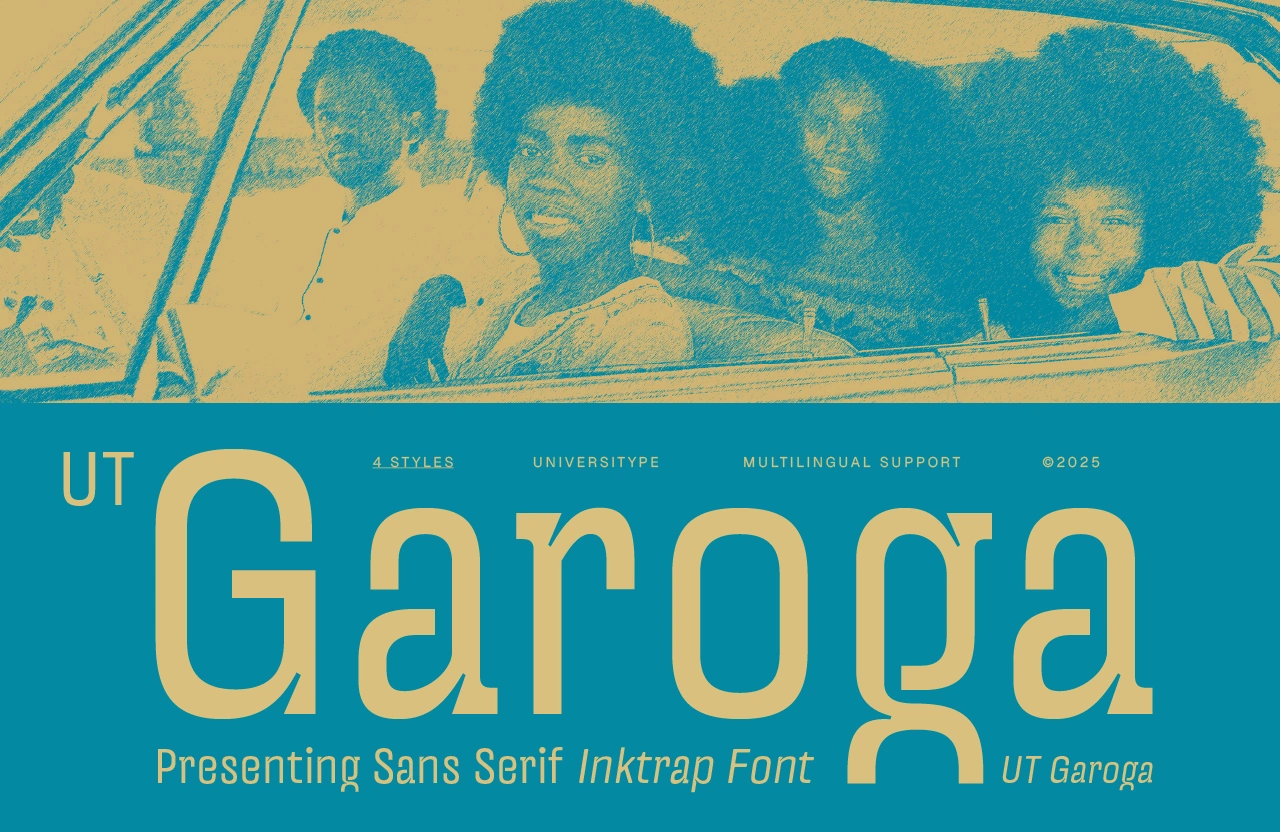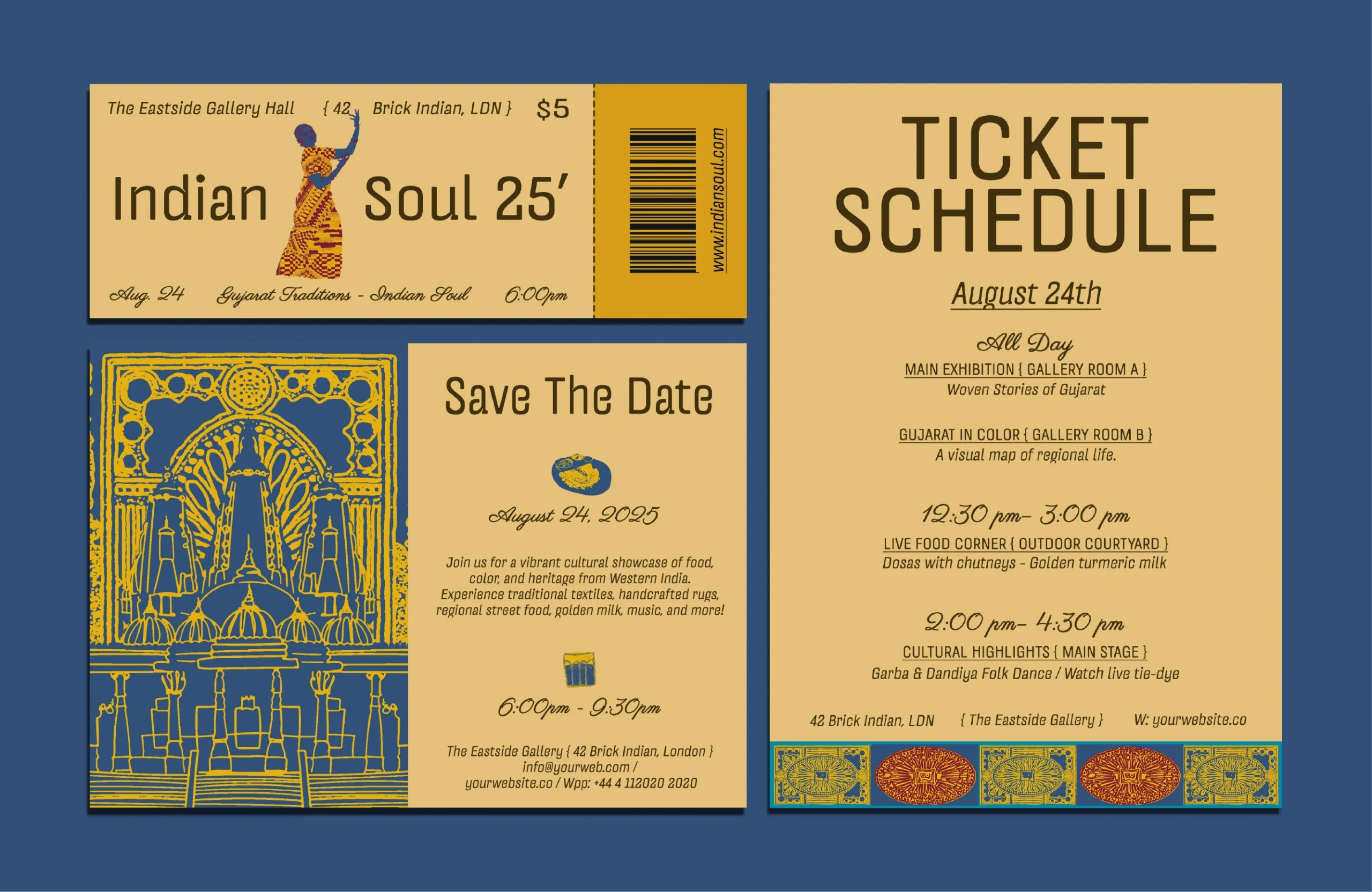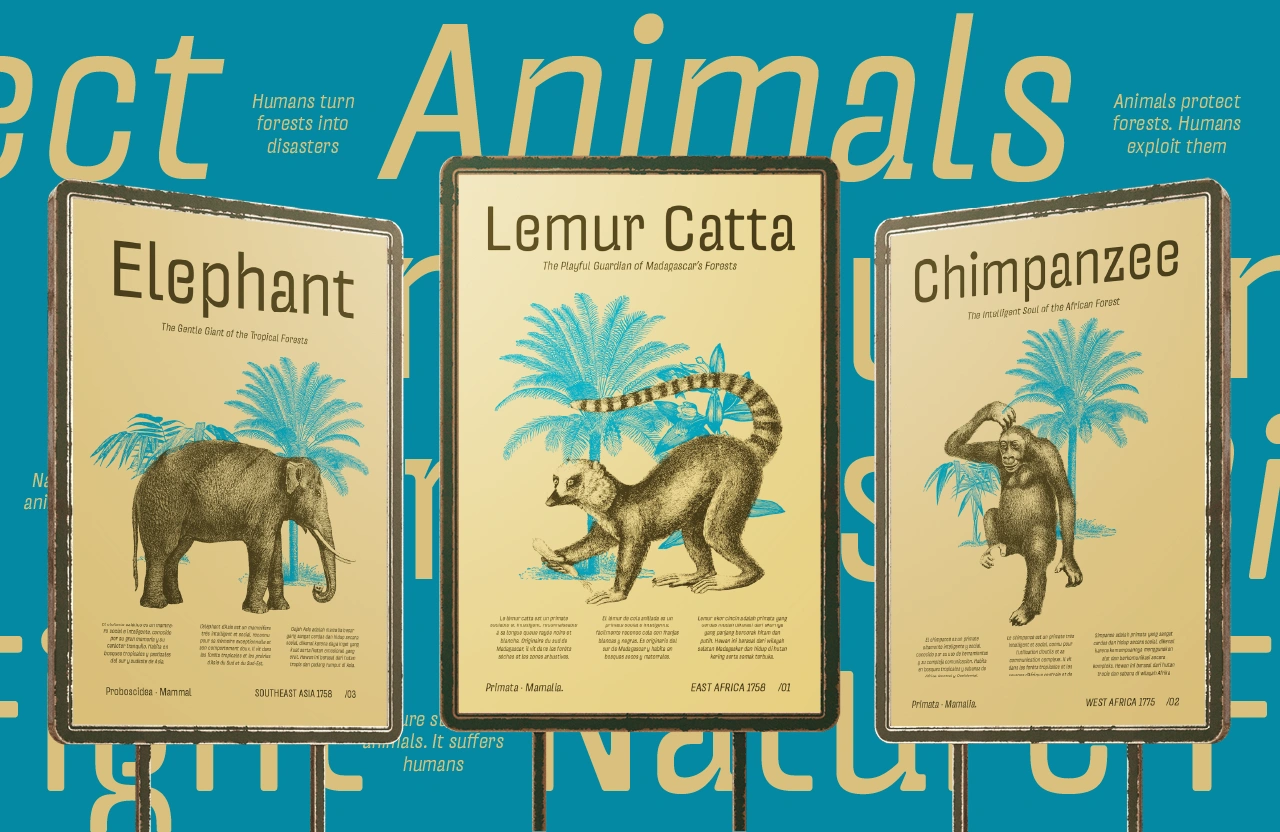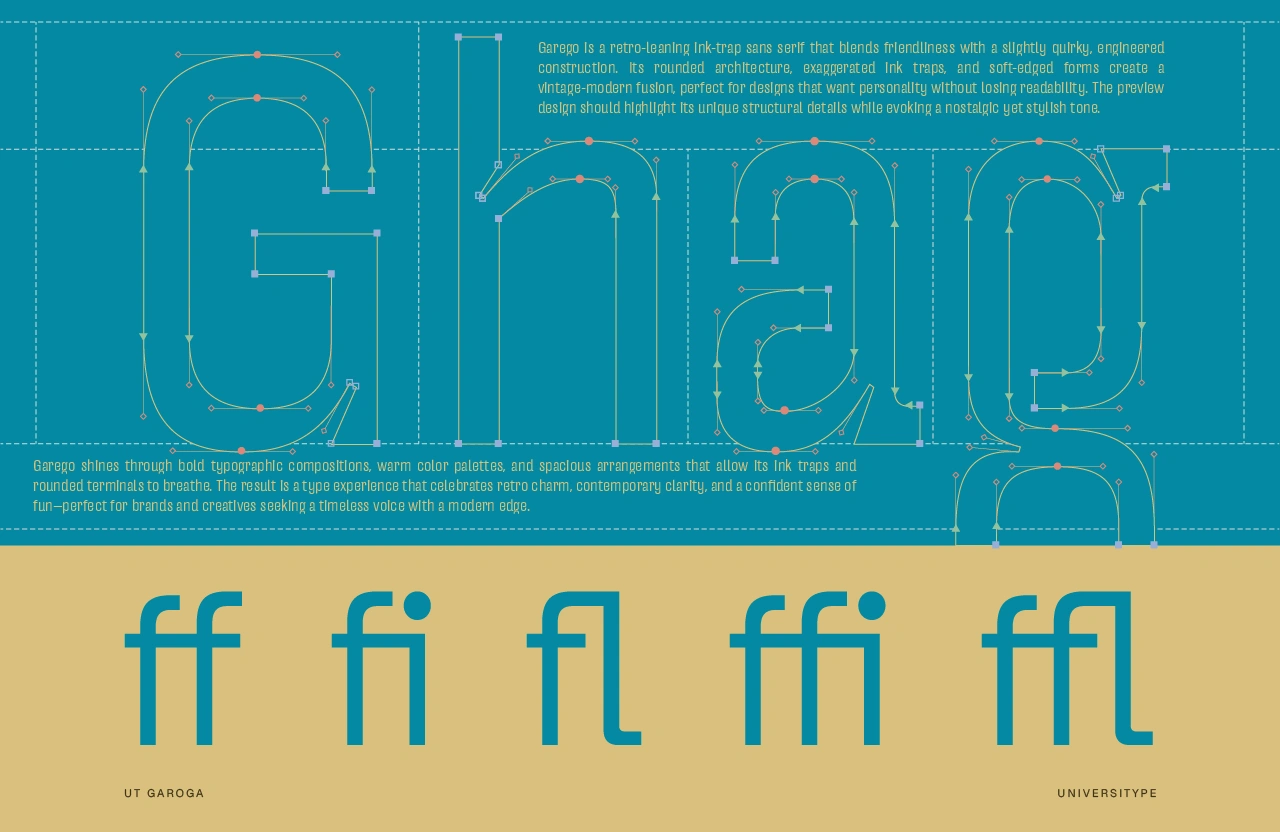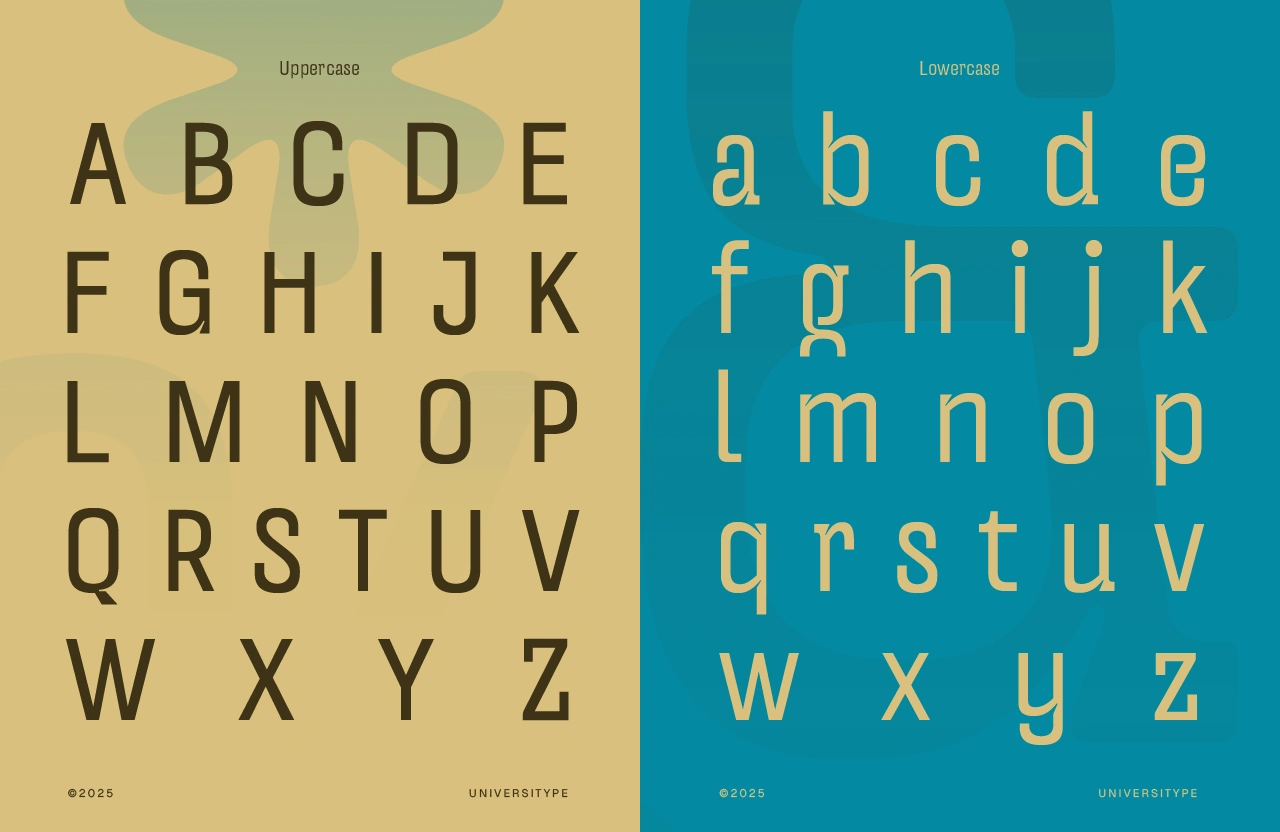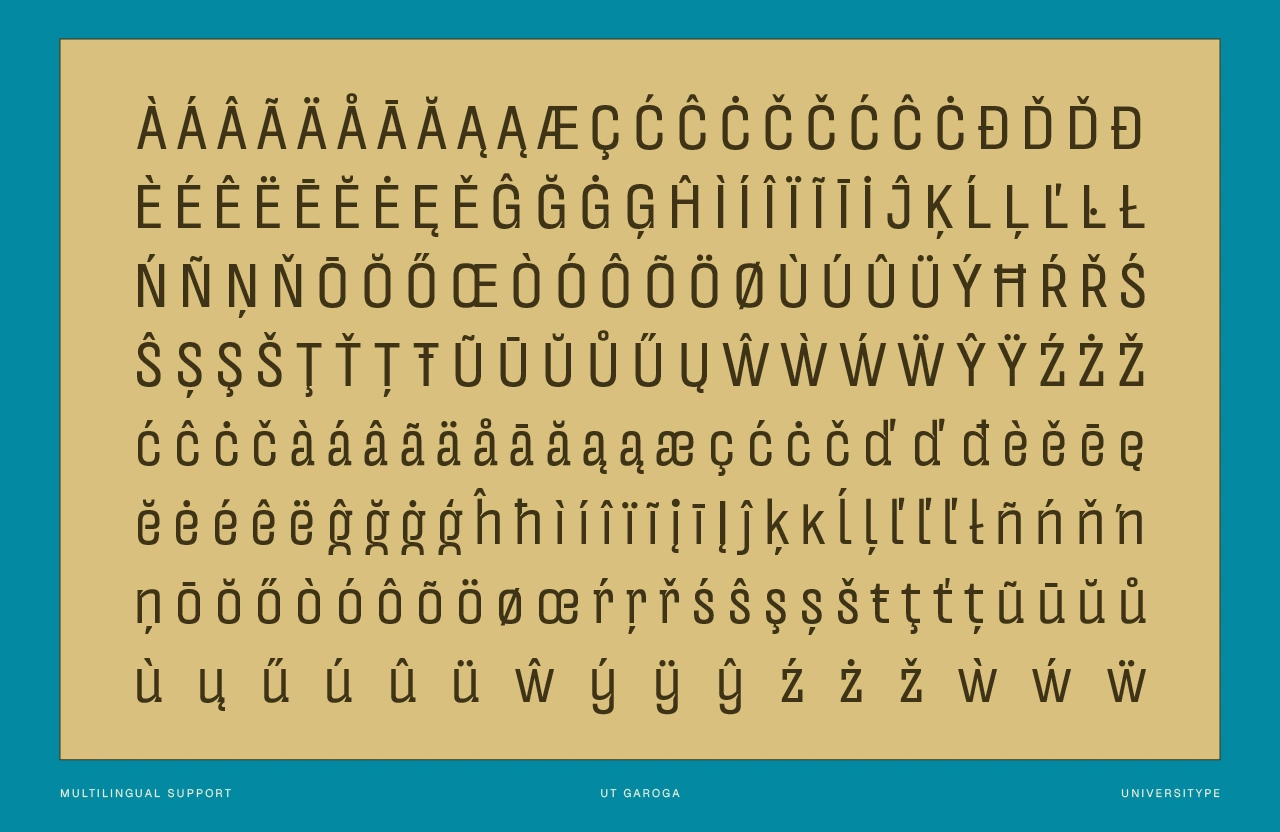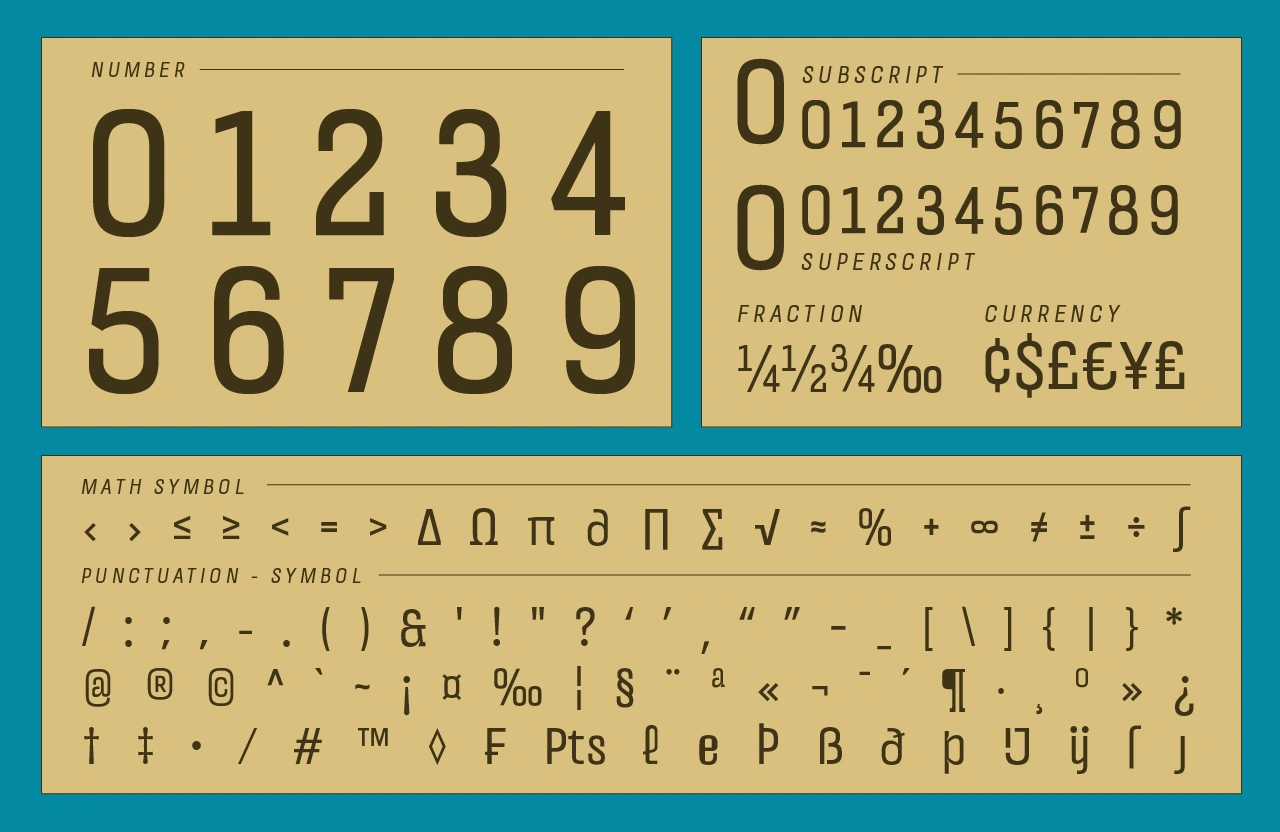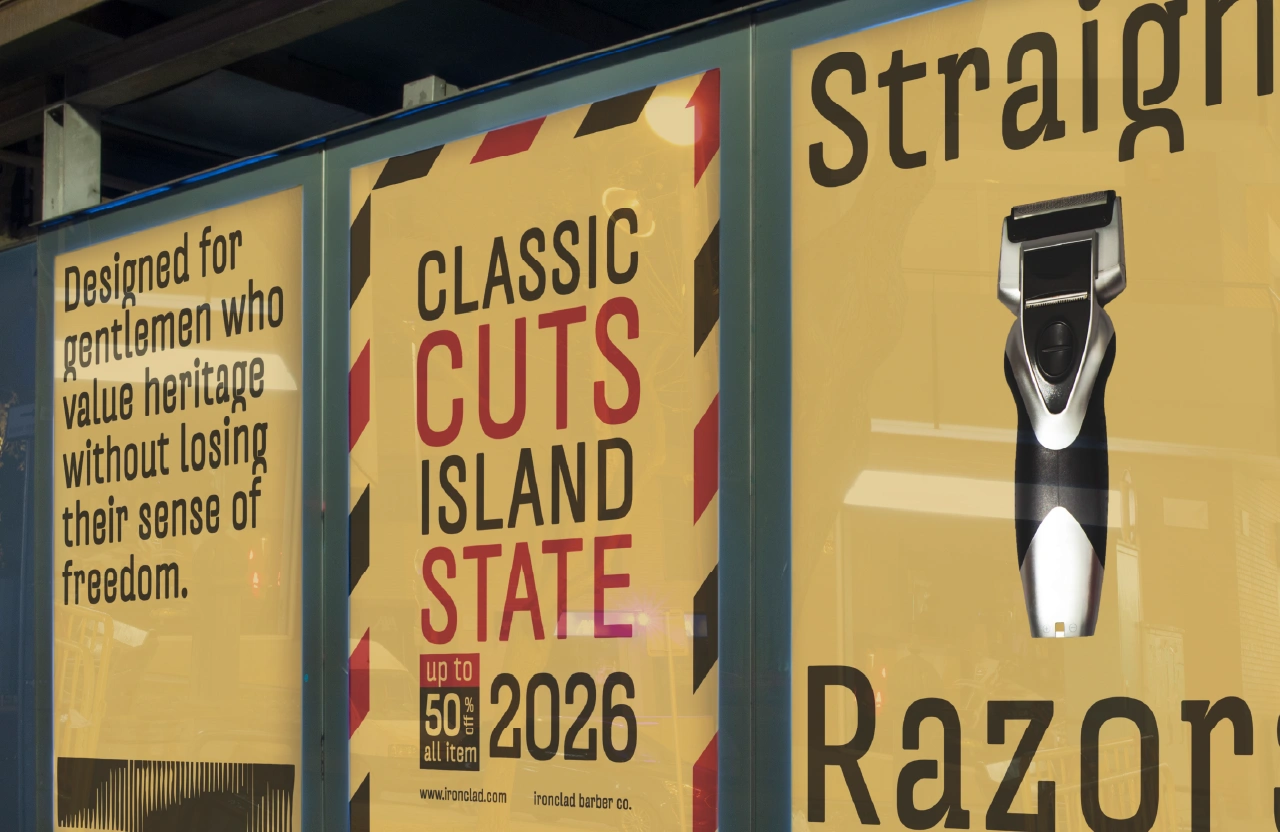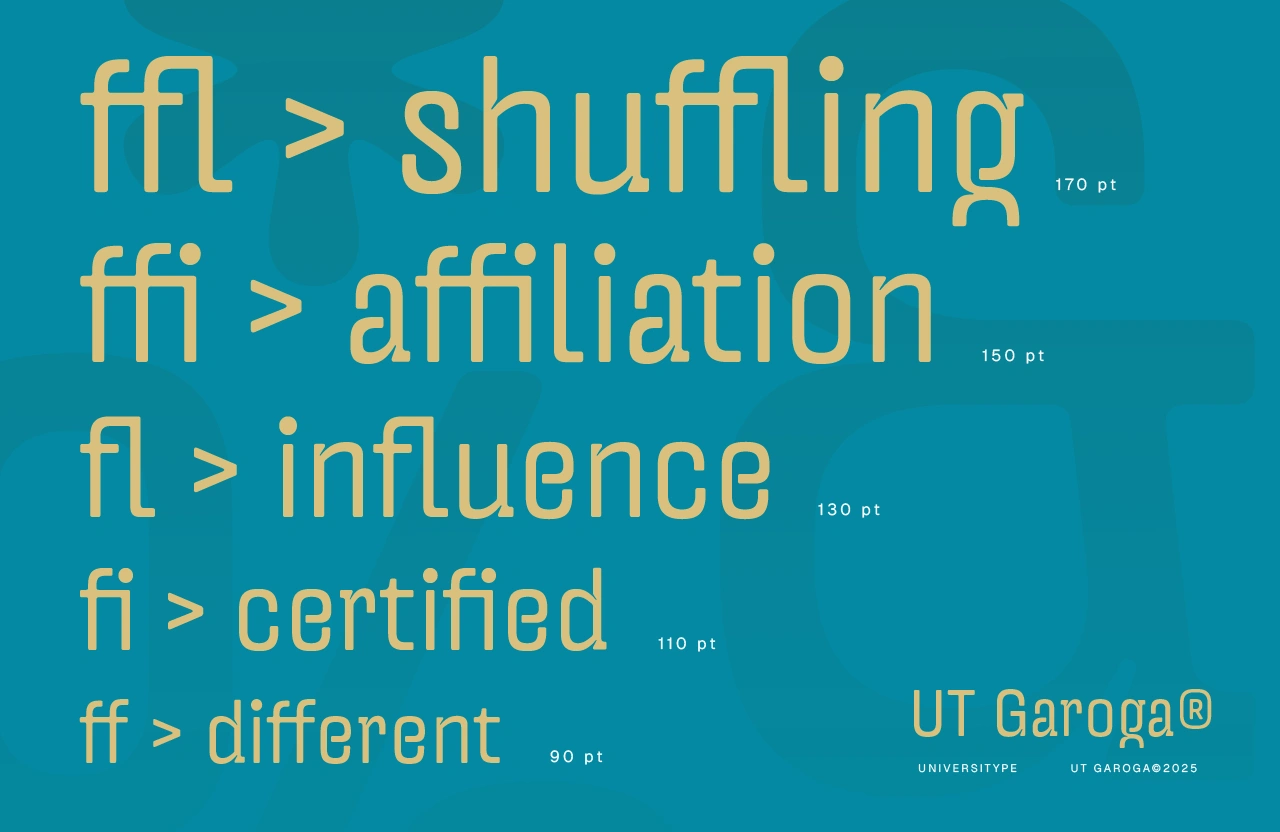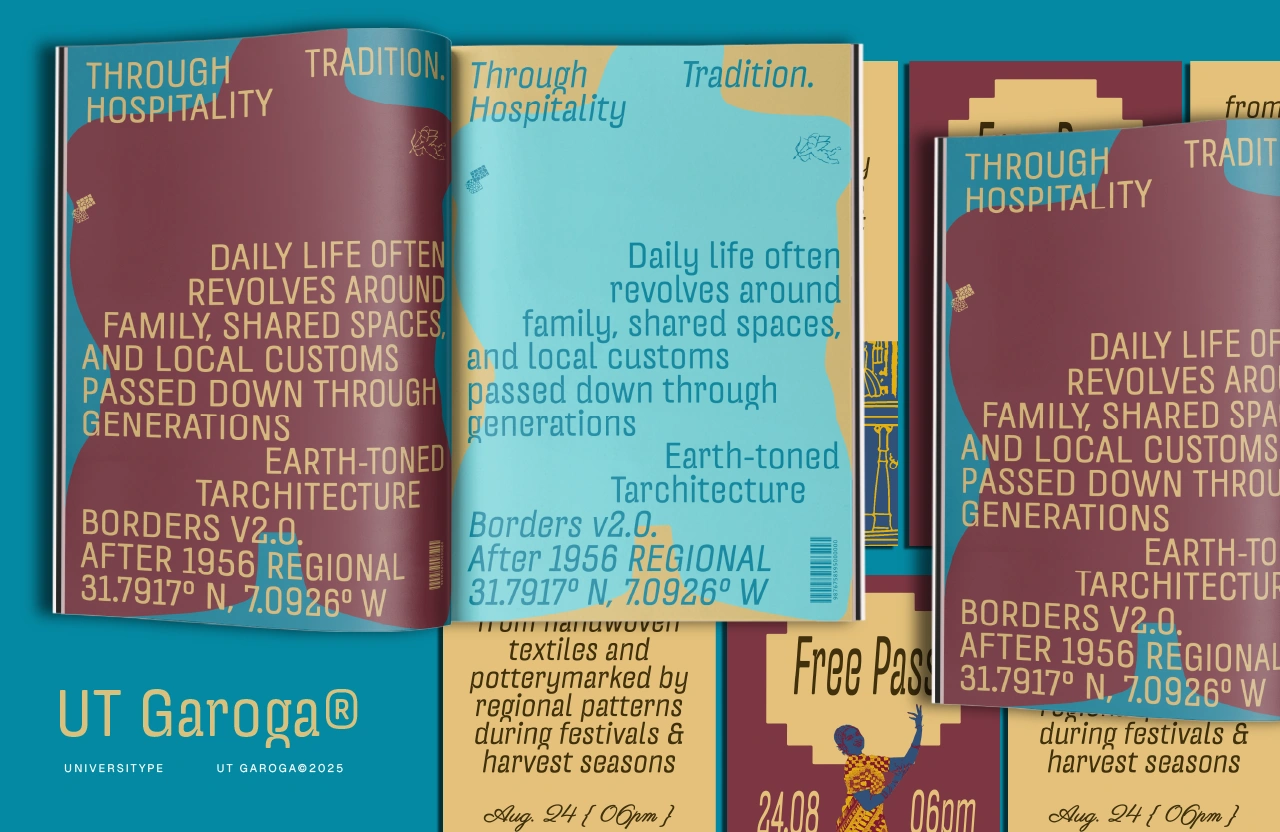
UT Garoga
UT Garoga is a retro-leaning sans serif with a playful ink-trap character and a carefully engineered structure. Rounded corners, exaggerated ink traps, and soft terminals give it a friendly tone, while its solid construction keeps everything feeling intentional and steady.
UT Garoga – A Retro Sans Serif Inktrap Font
UT Garoga is a retro-leaning sans serif with a playful ink-trap character and a carefully engineered structure. Rounded corners, exaggerated ink traps, and soft terminals give it a friendly tone, while its solid construction keeps everything feeling intentional and steady. Garoga feels nostalgic without drifting into gimmick territory, confident without turning rigid. It performs best at display sizes, where its quirky details have room to breathe.
Best Suited For :
• Brand designers building expressive visual identities
• Editorial designers working on bold headlines
• Packaging designers for lifestyle, food, and vintage-inspired products
• Creative studios seeking character-driven type
• Digital designers needing a warm display font
Key Features
• Four styles: Regular, Rounded, Oblique, Rounded Oblique
• Playful ink-trap details for strong visual identity
• Rounded architecture with soft, smooth curves
• Clear letterforms designed for display use
• Balanced proportions that feel friendly and confident
• 400+ glyphs with multilingual support
Inspiration Behind the Design
Garoga takes cues from retro print techniques, classic signage, and early industrial typography, when ink traps were functional rather than decorative. Those shapes are reworked into expressive details, paired with modern spacing and smoother curves. The rounded styles push the warmth further, giving designers flexibility to adjust the tone from crisp to cozy.